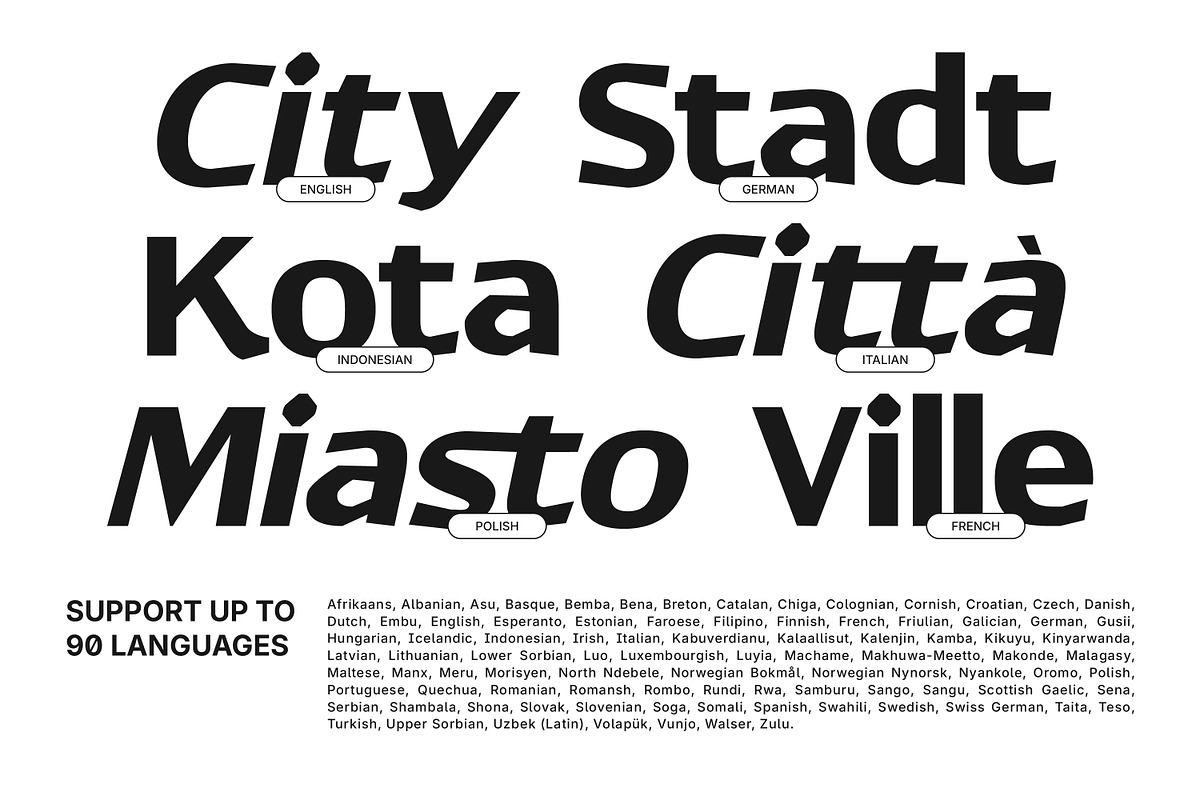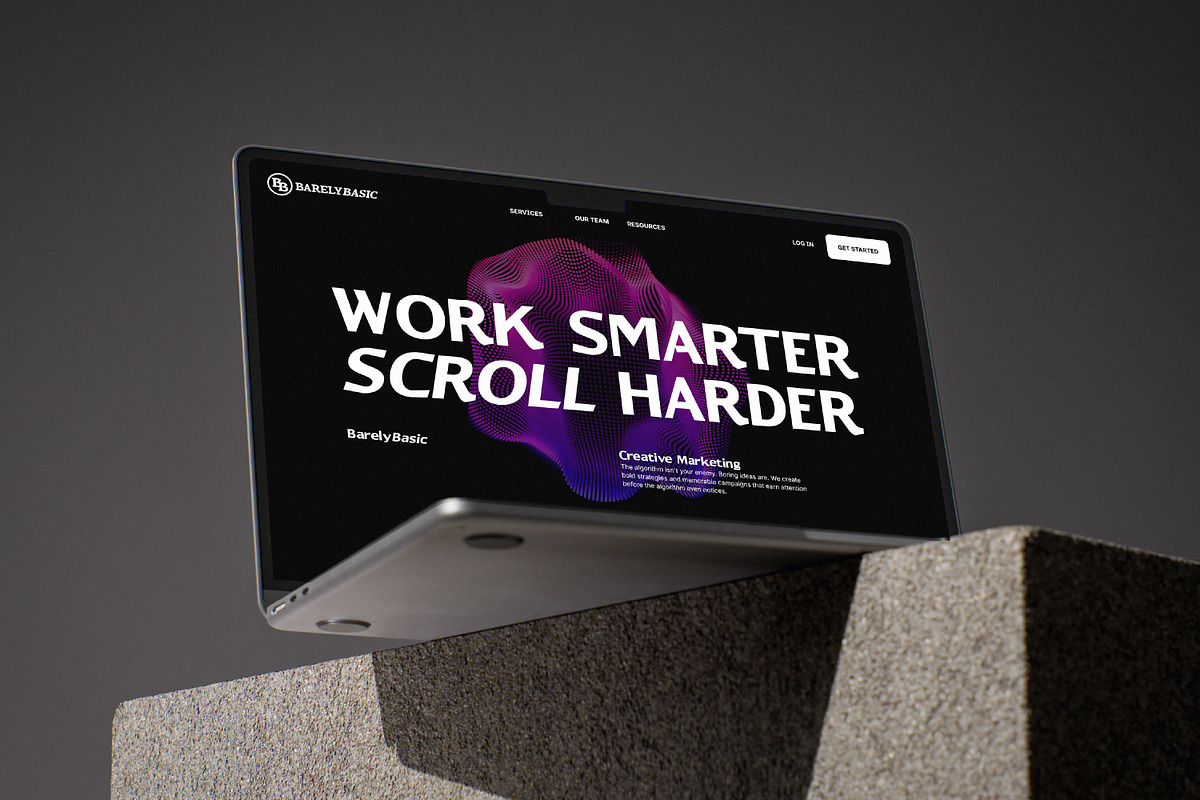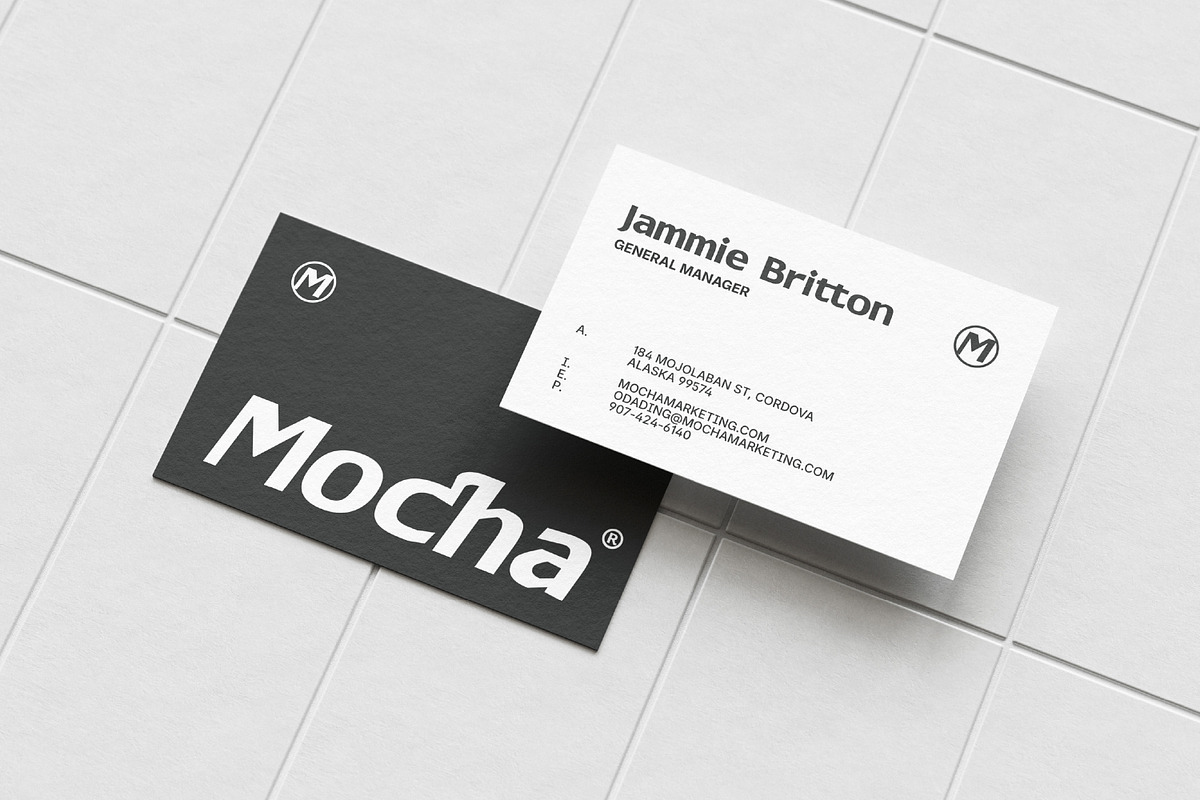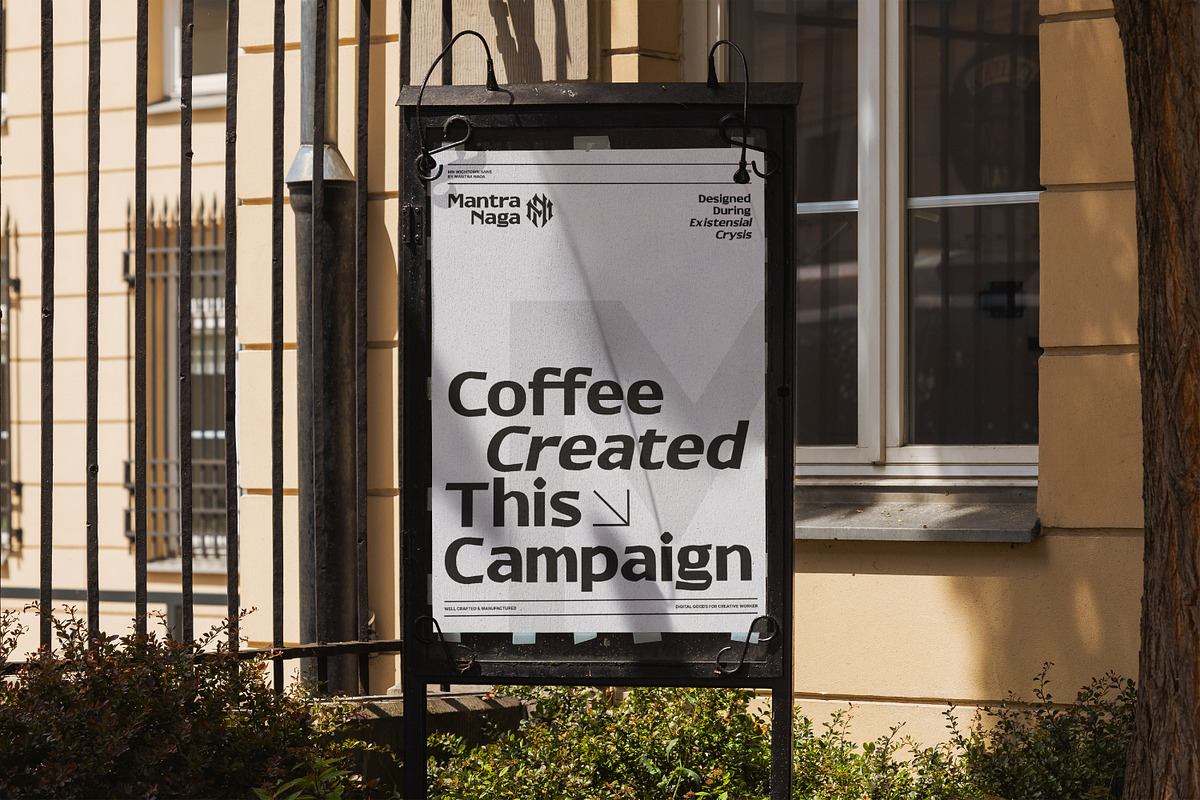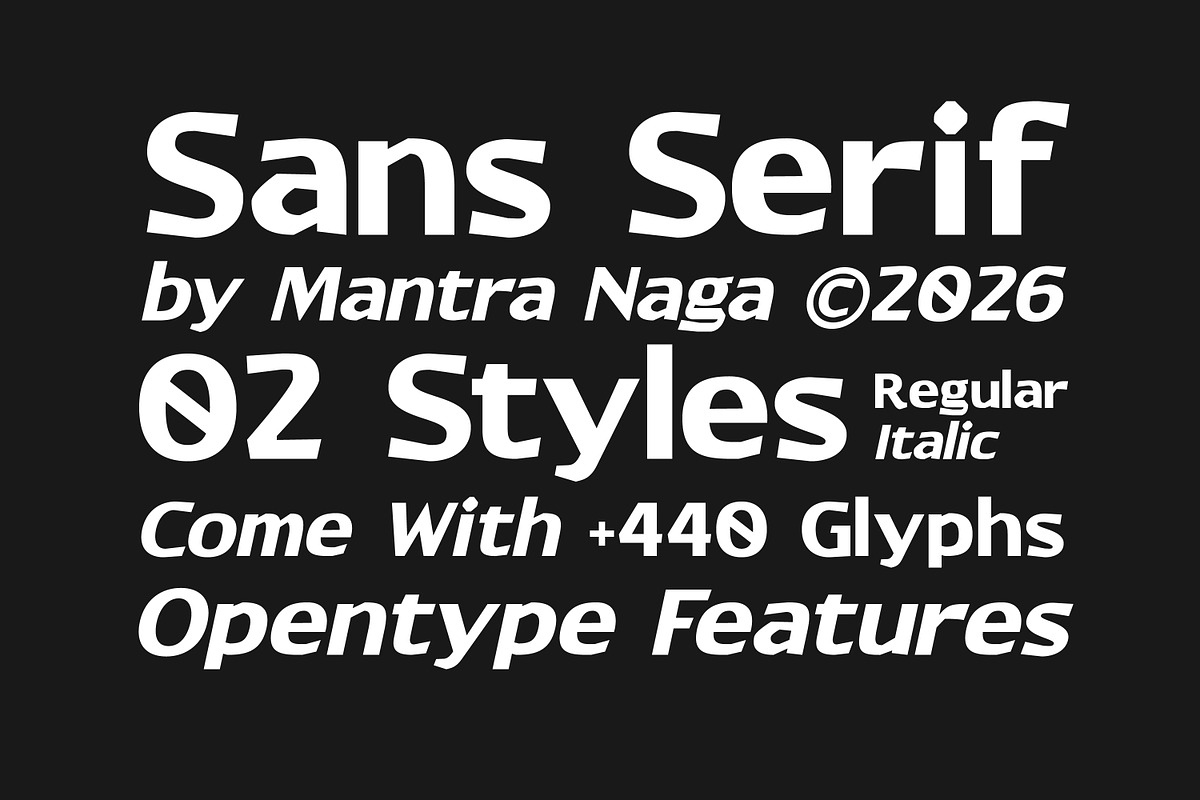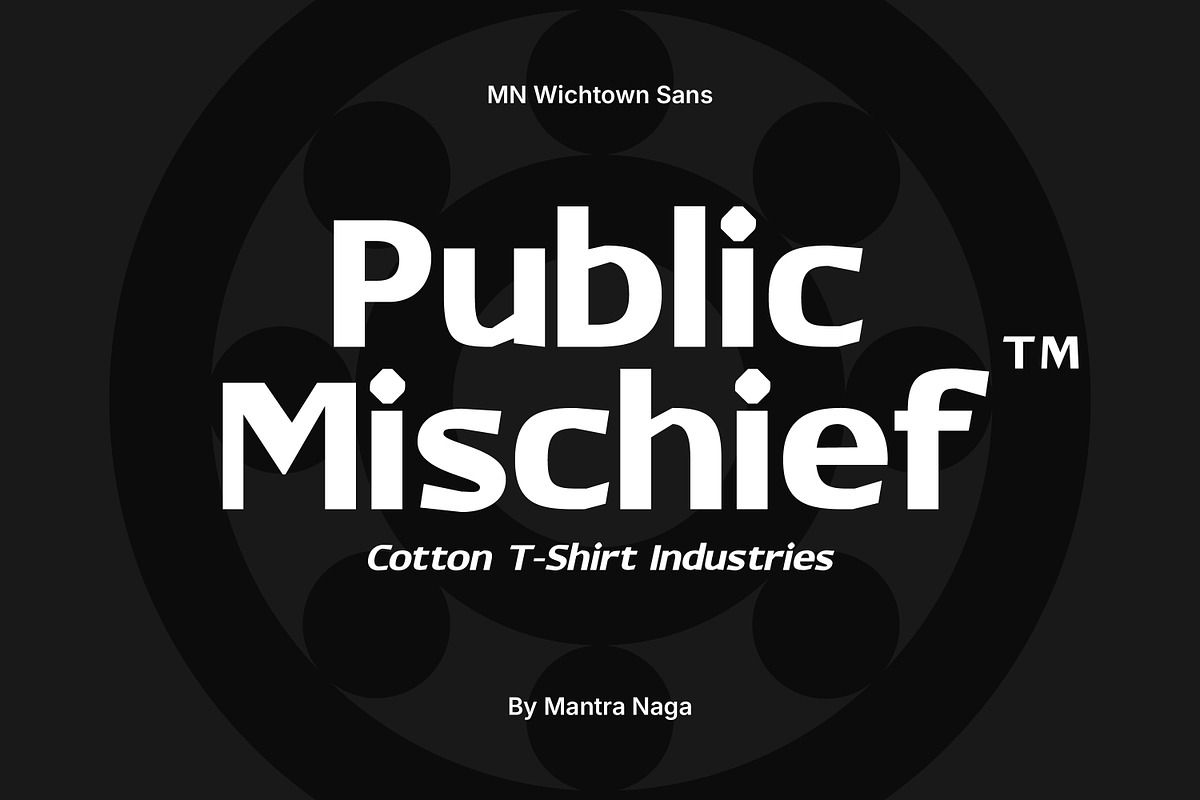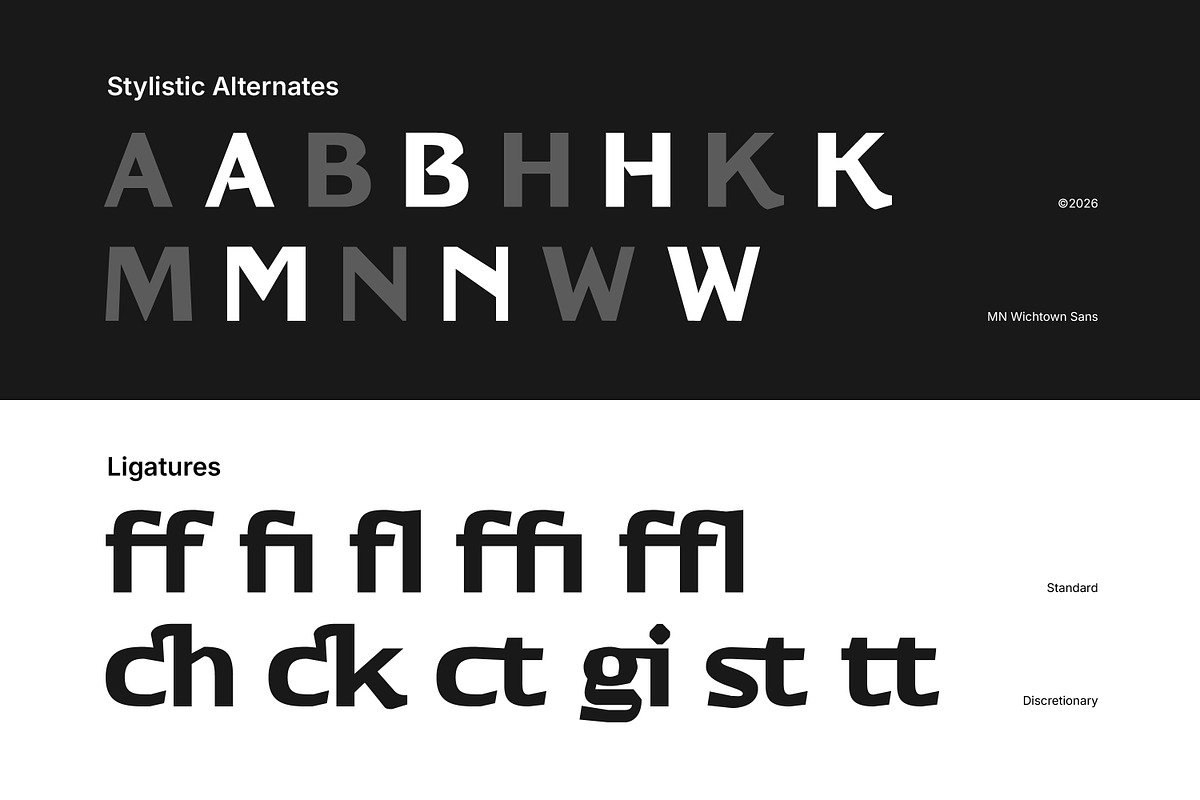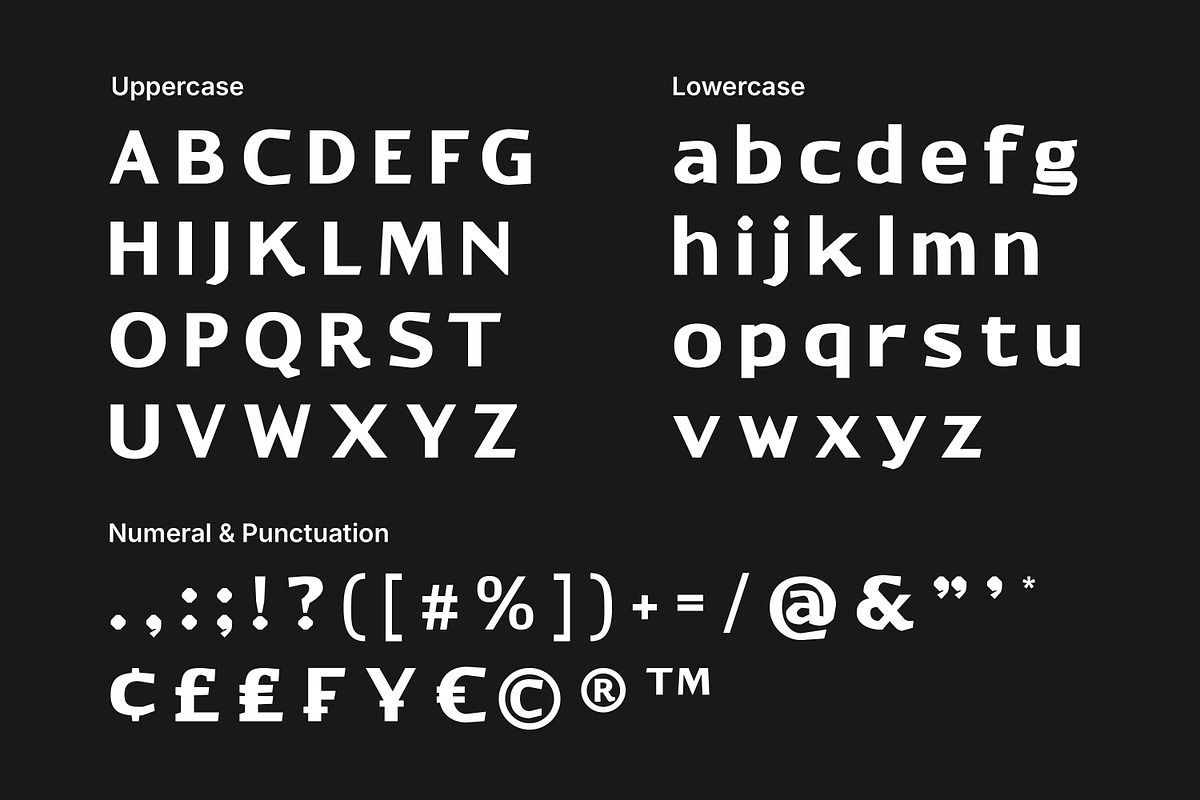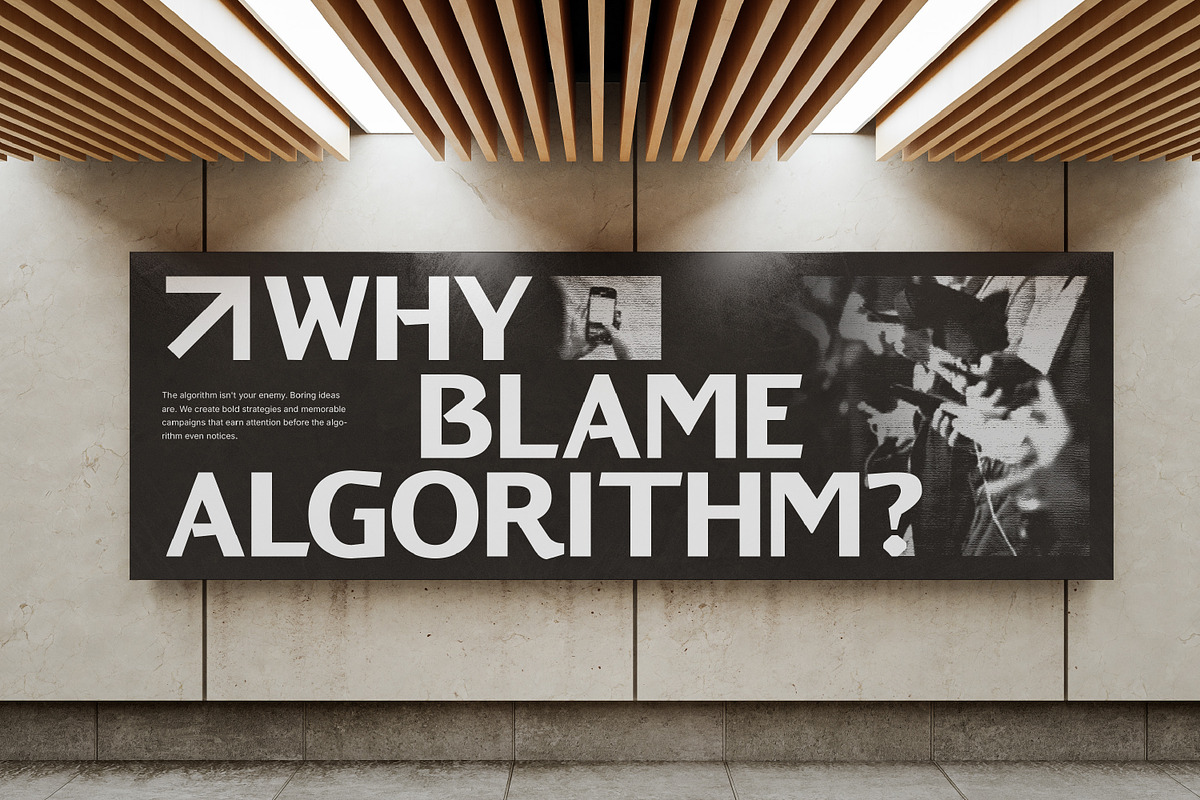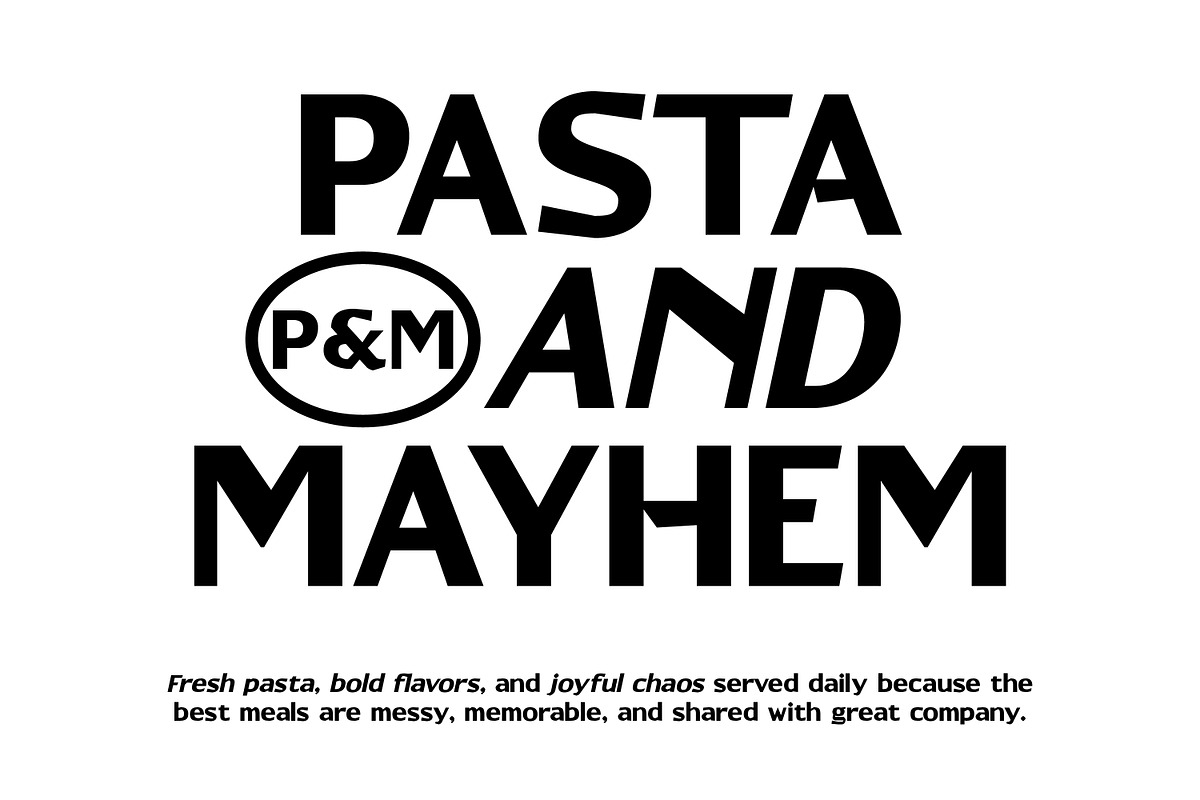
MN Wichtown Sans - Modern Sans Serif
MN Wichtown Sans is a modern sans serif typeface designed with a clean, confident, and slightly unconventional character. Combining contemporary proportions with distinctive details, it brings a fresh personality to the familiar language of modern sans serif typography.
Built for designers who want clarity without sacrificing character, Wichtown Sans balances bold visual impact with a versatile, editorial feel. Its strong letterforms work beautifully across headlines, branding, posters, packaging, editorial layouts, advertising, social media graphics, and other contemporary design applications.
The family comes with 2 styles: Regular and Italic, giving you additional flexibility for creating contrast, emphasis, and dynamic typographic compositions. With 440+ glyphs, OpenType features, stylistic alternatives, and ligatures, MN Wichtown Sans offers plenty of room for experimentation while maintaining a cohesive visual system.
Its distinctive forms make it especially suitable for modern branding, creative campaigns, editorial design, fashion graphics, posters, packaging, logos, headlines, and visual identities that need a contemporary yet recognizable typographic voice.
Whether used at large display sizes or integrated into a broader identity system, MN Wichtown Sans brings a bold, modern attitude with just the right amount of character.
2 Styles: Regular & Italic
440+ Glyphs
OpenType Features
Standard & Discretionary Ligatures
Suitable for Display & Branding Applications